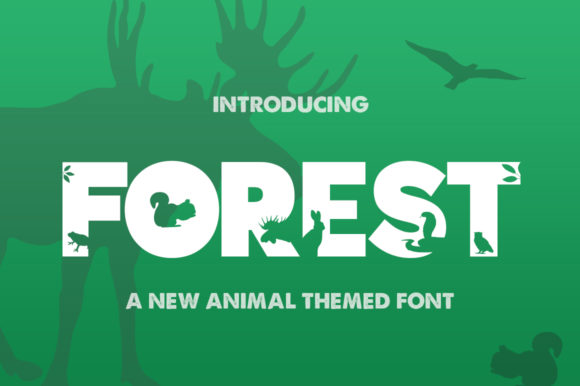
Embrace the rustic, rugged charm of the Forest Font, a breathtaking display font that evokes the serene beauty of nature's landscapes. Crafted by the artistic hands at Salt and Pepper Fonts, Forest invites you on an outdoor adventure with its captivating characters, reminiscent of a world teeming with enchanting woodlands and towering trees.
With this font as your creative companion, you'll weave tales of rustic wonder and earthy delights that will captivate any viewer. Its vibrant personality shines brightest in the creation of wood signs, where the rough-hewn texture of wood and the lively spirit of Forest unite to tell stories of adventure and exploration.
Forest is not merely a font; it's an artistic testament to the raw beauty of the natural world. It breathes life into crafted creations, be they rustic wedding invitations, earthy logo designs, or charming branding projects. Its versatility extends to a myriad of imaginative projects, allowing you to capture the untamed spirit of the wild in any design you desire.
With Forest at your fingertips, you'll infuse your designs with the allure of nature's symphony, where whispering leaves and murmuring streams add a layer of rustic grace to your creations. It's a font that connects your audience with the serenity of nature, fostering a sense of awe and wonder in each design you craft.
Step into a realm of creative possibilities with Forest, the display font that awakens the adventurer within. Unleash your inner artist and allow your designs to blossom with the organic beauty of the great outdoors. As you embrace this font, you'll not only create visually stunning designs but also embark on a journey of exploration and discovery.